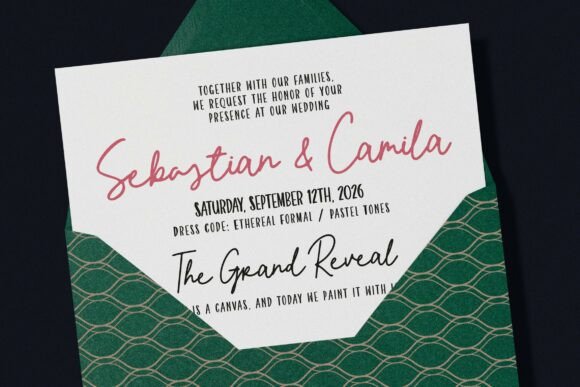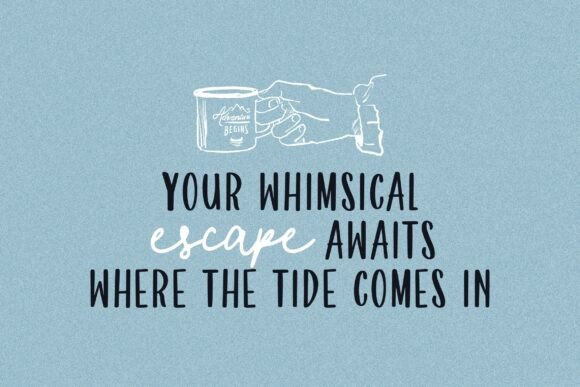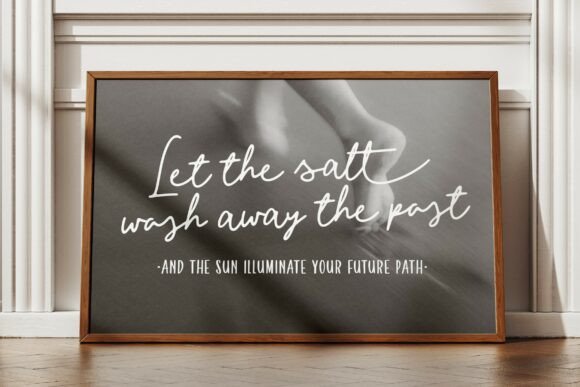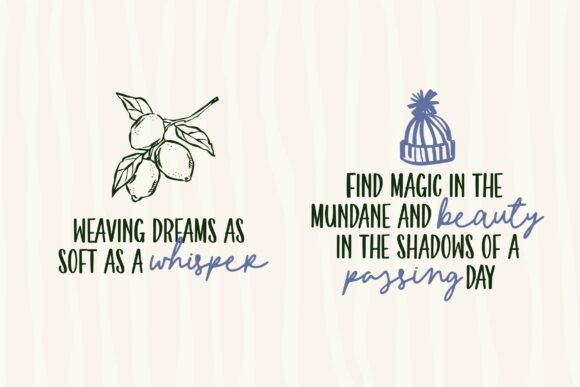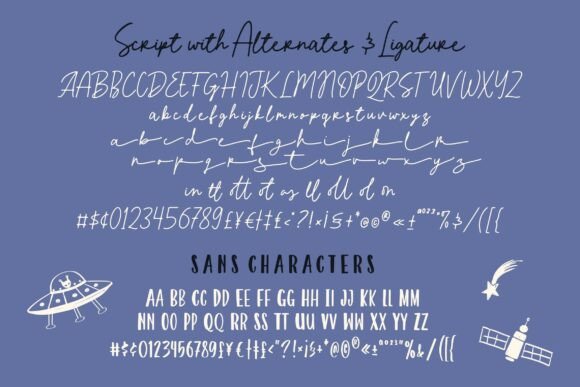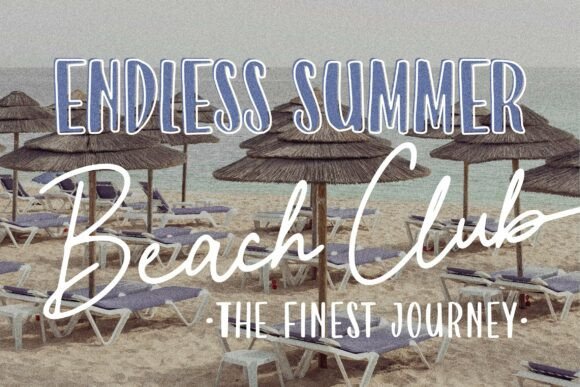
Discover the Enchanting World of Cloudy Starlight Font
Are you a designer or crafter looking for a unique and captivating font to elevate your creative projects? Look no further than Cloudy Starlight, a beautifully crafted handwritten font duo that combines a bold, playful display style with a smooth, flowing script. This stunning font pair is designed to bring a perfect balance between charm and elegance to your designs, making it an ideal choice for a wide range of creative endeavors.
The Perfect Balance of Charm and Elegance
Cloudy Starlight is more than just a font – it’s a design experience. The strong uppercase characters bring a confident presence, exuding a sense of boldness and playfulness that’s sure to grab attention. Meanwhile, the handwritten script adds a natural, personal touch that feels warm and expressive, injecting a sense of whimsy and magic into your designs. This beautiful balance between contrasting styles makes Cloudy Starlight a versatile font duo that’s perfect for a variety of design applications.
Key Features of Cloudy Starlight Font
- Handwritten Font Duo: Cloudy Starlight consists of two complementary fonts: a bold, playful display style and a smooth, flowing script.
- Perfect Balance: The font duo strikes a perfect balance between charm and elegance, making it suitable for a wide range of design projects.
- Strong Uppercase Characters: The bold uppercase characters bring a confident presence, adding a touch of boldness and playfulness to your designs.
- Natural, Personal Touch: The handwritten script adds a natural, personal touch that feels warm and expressive, making your designs feel more approachable and engaging.
- Versatile Style: Cloudy Starlight’s versatile style makes it perfect for use in a variety of design applications, from branding and advertising to packaging and digital media.
Use Cases for Cloudy Starlight Font
Cloudy Starlight is an incredibly versatile font duo that can be used in a wide range of design projects, including:
- Branding and Identity: Use Cloudy Starlight to create a unique and memorable brand identity that stands out from the crowd.
- Advertising and Marketing: The font duo’s bold and playful style makes it perfect for use in advertising and marketing materials, such as posters, flyers, and social media graphics.
- Packaging Design: Add a touch of magic to your packaging designs with Cloudy Starlight’s whimsical and eye-catching style.
- Digital Media: Use Cloudy Starlight in digital media, such as video games, mobile apps, and website designs, to create a unique and engaging user experience.
Why Choose Cloudy Starlight Font?
With so many fonts to choose from, why should you choose Cloudy Starlight? Here are just a few reasons:
- Unique and Eye-Catching: Cloudy Starlight’s unique and eye-catching style is sure to grab attention and make your designs stand out.
- Highly Versatile: The font duo’s versatility makes it perfect for use in a wide range of design applications.
- Easy to Read: Despite its playful and whimsical style, Cloudy Starlight is highly legible and easy to read, making it perfect for use in body text and other long-form content.
In conclusion, Cloudy Starlight is a beautifully crafted handwritten font duo that’s perfect for designers and crafters looking to add a touch of magic to their creative projects. With its perfect balance of charm and elegance, versatile style, and eye-catching appearance, Cloudy Starlight is sure to elevate your designs and make them stand out from the crowd. So why wait? Download Cloudy Starlight today and discover a world of creative possibilities!